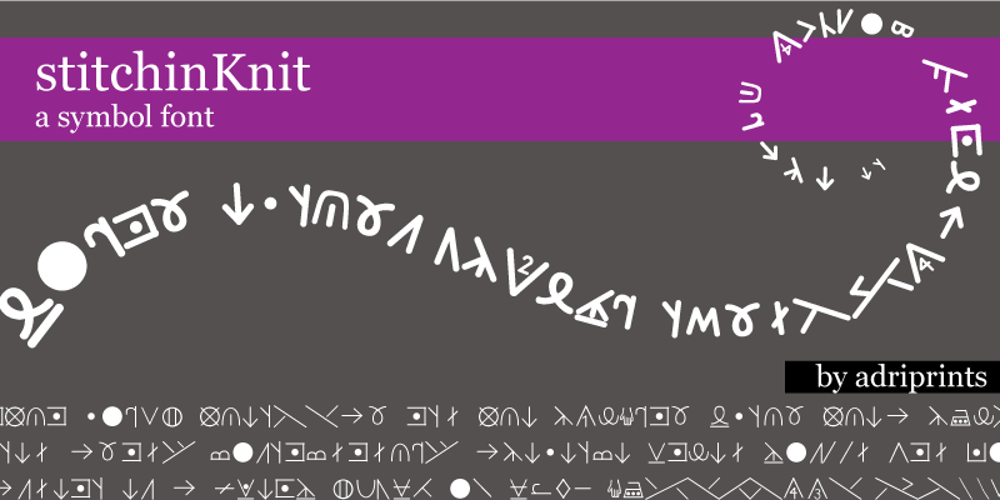
StitchinKnit
StitchinKnit font
StitchinKnit Font Family was designed by Adriana E. Hernandez and published by Adriprints. StitchinKnit contains 6 styles and family package options. StitchinKnit is the second font in the Stitchin Super Family following StitchinCrochet. Unable to find a stylish and easy-to-use knitting symbol font, I decided to continue in the StitchinCrochet tradition, and make one from scratch! StitchinKnit offers incredibly legible, and intuitive symbols that are easily accessible without special numerical codes on the keyboard. The symbols are clear and the family pack offers three different styles to match your various pattern charting needs. Please check the keyboard chart in the Gallery section to see how the various symbols are accessed from the keyboard.